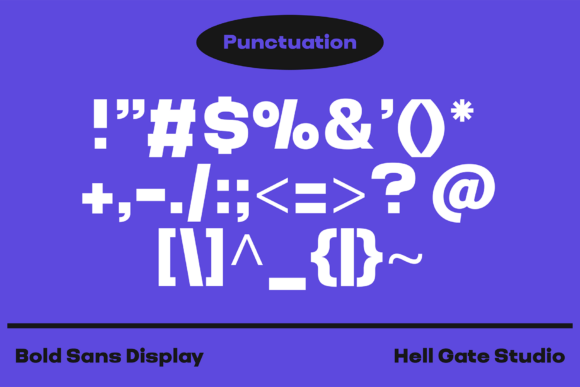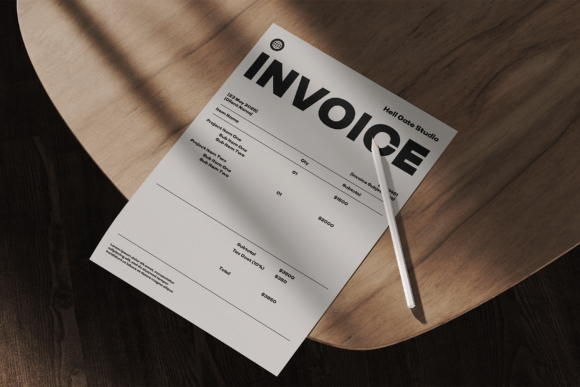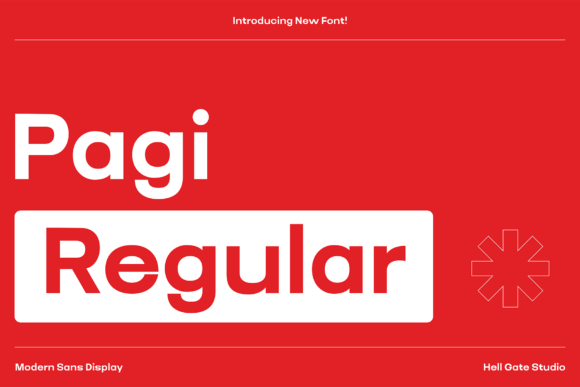
Introduction to Pagi Font
Remember that moment when a single font choice can make all the difference in a design? It’s the ‘aha’ moment that designers live for – when a project comes together and the typography is just right. For creatives, finding the perfect font can be a challenge, but what if you could elevate your design game with a font that exudes elegance and sophistication?
Enter Pagi Font, a stunning Sans Serif font that’s sure to take your creative projects to the next level. With its bold strokes and effortless charm, Pagi Font brings a touch of luxury to any design theme. Whether you’re working on a high-end branding project or a free download resource for designers, this versatile font is an exceptional choice for those striving for originality and elegance.
As a valuable addition to any designer’s toolkit, Pagi Font offers seamless editing capabilities and a high-quality rendering that will make your designs stand out from the crowd. With its transparent background and OTF file included, you’ll have everything you need to bring your creative vision to life.
Pagi Font: Essential Features for Creative Projects
- This font comes in a single weight, making it perfect for titles, headings, and short text blocks.
- The font’s unique characteristics include its clean, modern design and versatile application in various creative projects.
Honest Review: Pagi Font
I recently came across the Pagi Font, a beautiful sans-serif font designed specifically for creative projects. The first thing that caught my attention was its free download availability, which makes it a great resource for designers on a budget. The transparent background is also a great feature, allowing for seamless integration with any design.
- What works well: ✨ The Pagi Font has a clean and modern design, making it perfect for digital products, apps, and websites. The font is highly legible and suitable for body text, headlines, and even titles.
- What works well: ✨ The font is available in several weights and styles, giving designers the flexibility to choose the perfect fit for their creative project.
While the Pagi Font is a great design resource, I do have a few concerns. The font’s limited support for languages other than Latin-based alphabets may be a limitation for some designers working on international projects. Additionally, the font may not be suitable for print materials, as it’s designed primarily for digital use.
Overall, I’m impressed with the Pagi Font’s quality and versatility. It’s a great addition to any designer’s toolkit, especially for those working on high-quality creative projects. However, it’s essential to consider the font’s limitations before using it for more complex projects.
Pagi Font
Using Pagi Font in Popular Design Platforms
Import the Pagi Font into Canva and use it for creating social media graphics, posters, or flyers. The font’s unique design will add a touch of elegance to your projects.
Use the Pagi Font in Adobe Photoshop or Illustrator to create high-quality designs for print or digital media. The font’s transparent background makes it easy to combine with other design elements.
Insert the Pagi Font into PowerPoint or Word to create professional-looking presentations or documents. The font’s sophisticated design will make your content stand out.
Tips for Getting the Most Out of Pagi Font
- Experiment with different font sizes and styles to find the perfect combination for your project.
- Combine the Pagi Font with other design elements, such as images or graphics, to create visually appealing designs.
- Use the font’s transparent background to create a seamless design experience.
- Print media, such as business cards and brochures
Alternatives to Pagi Font
Open Sans is a modern sans-serif font that is perfect for creating a clean and minimalistic design. It is available for free download and is highly versatile, making it suitable for various creative projects. When to use: For designs that require a neutral background and a high-quality, transparent font.
Comparison to Pagi Font: While Open Sans is more minimalist, it offers a similar level of clarity and readability as Pagi Font.